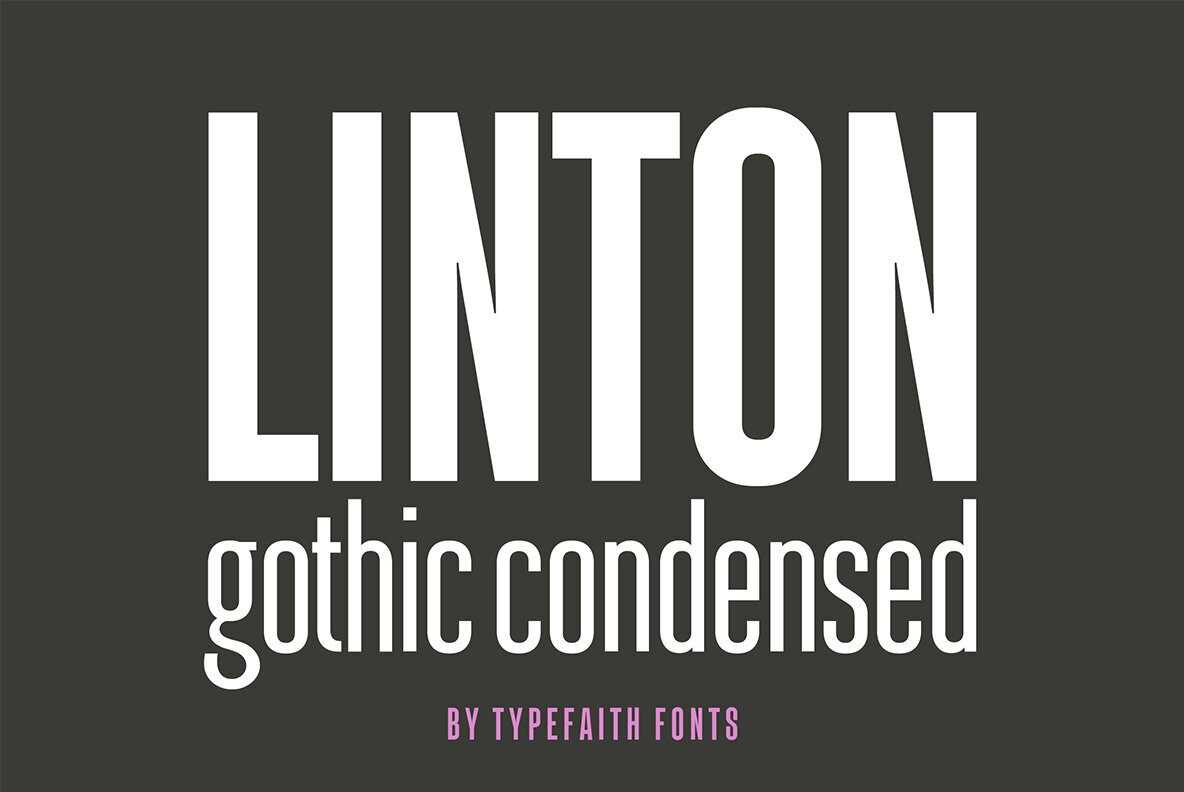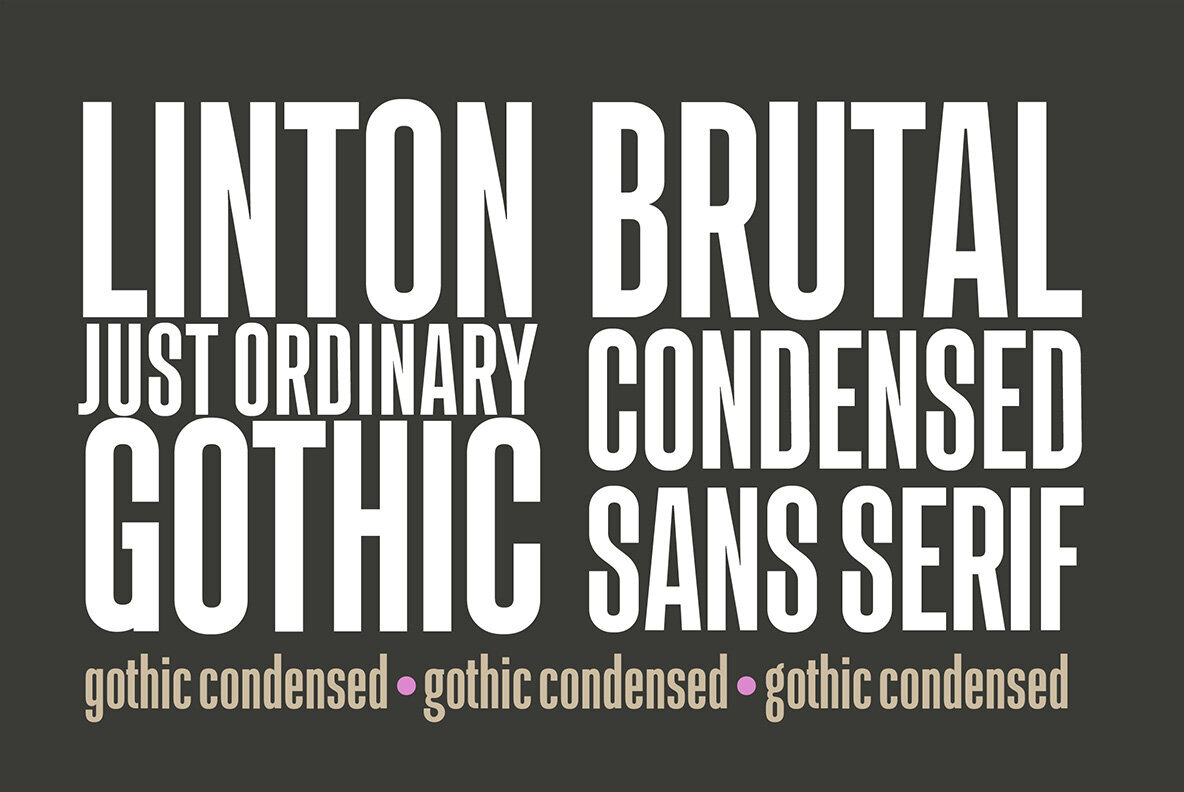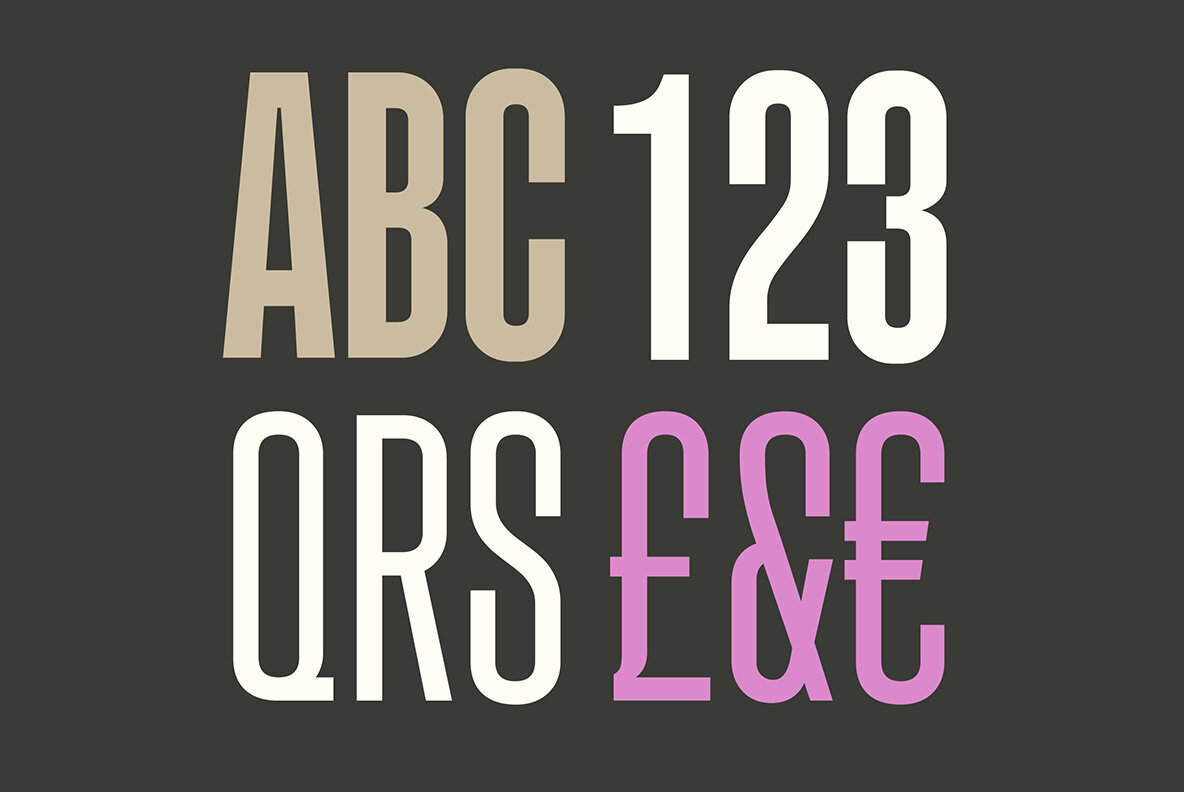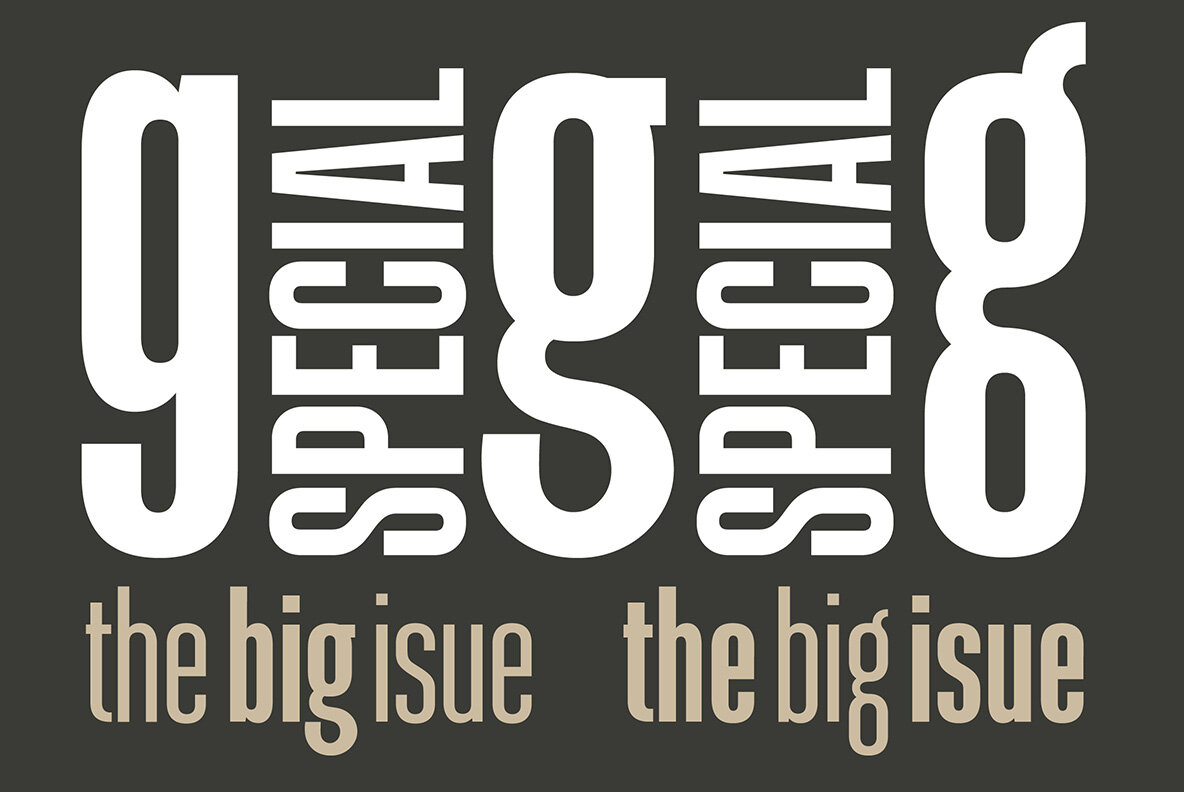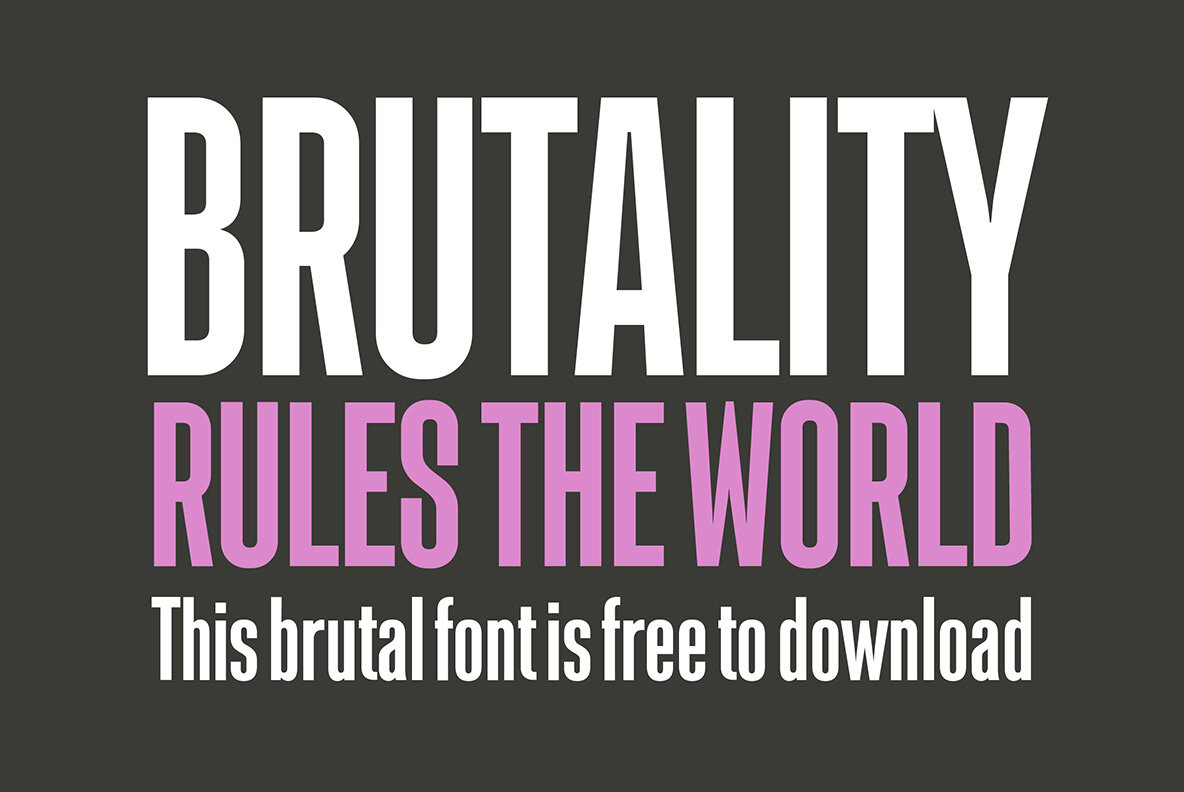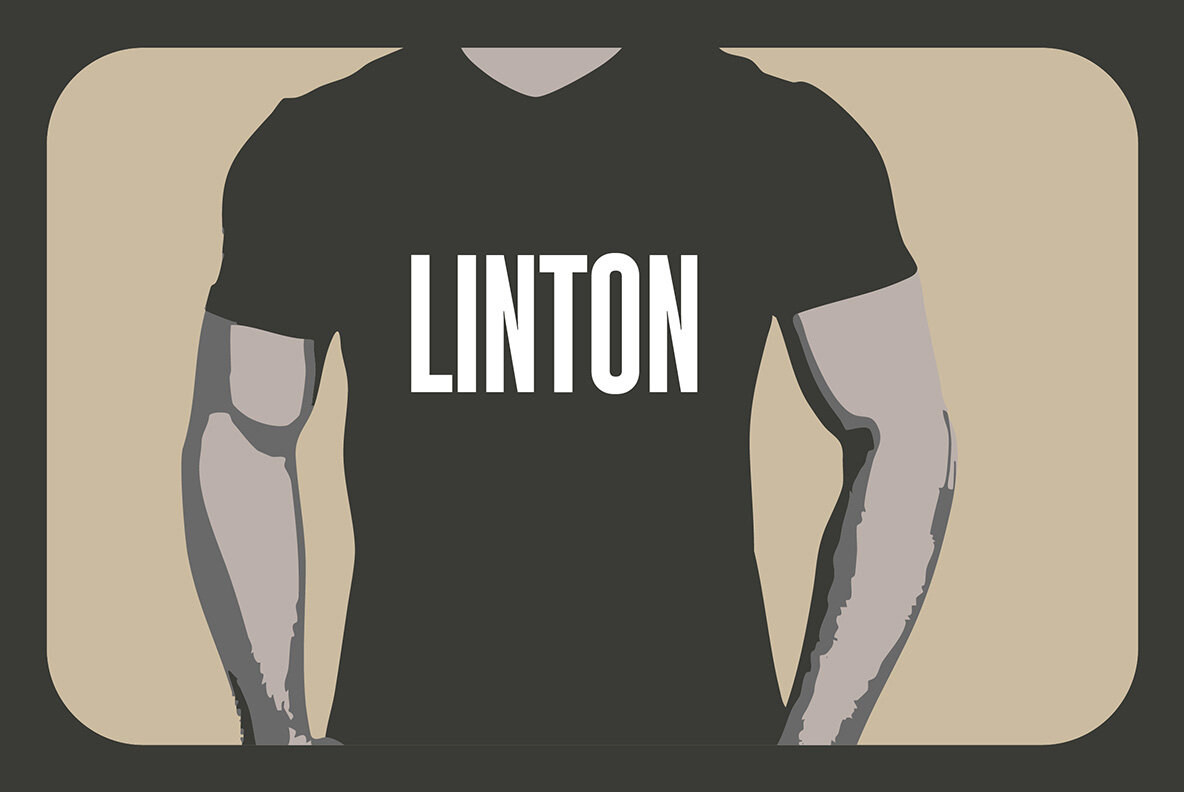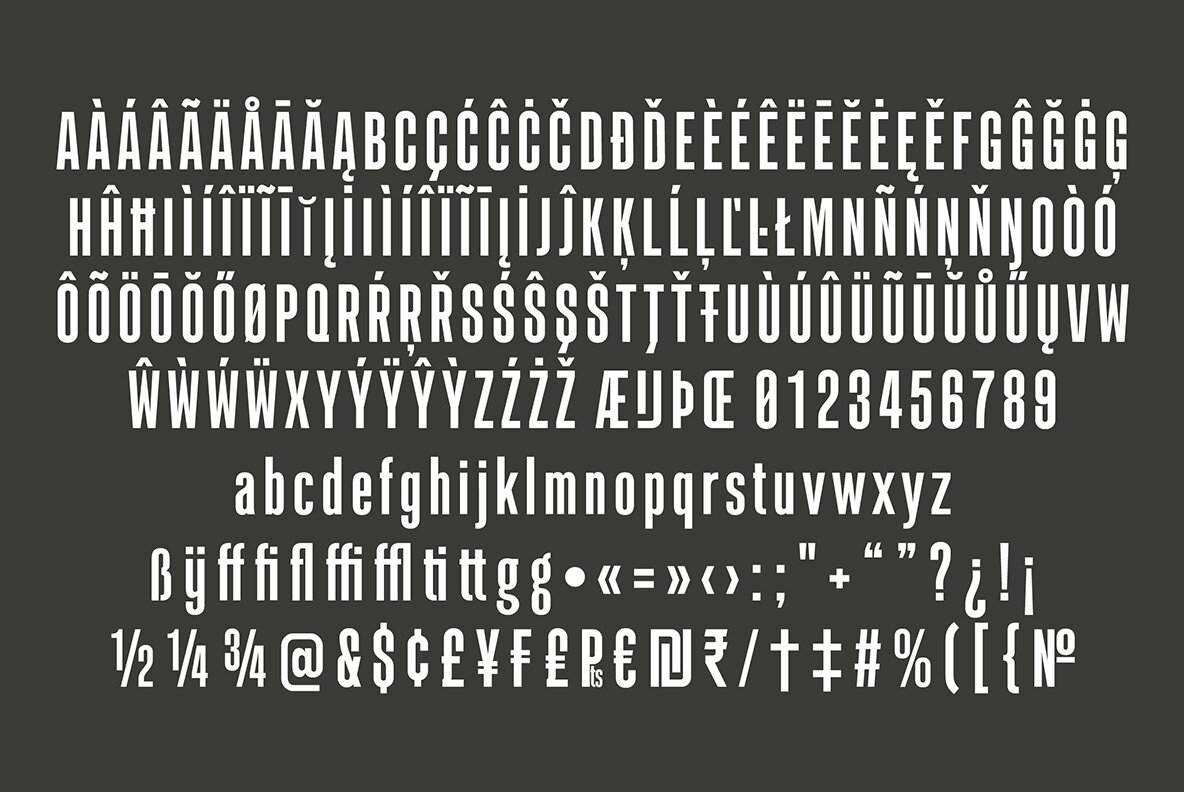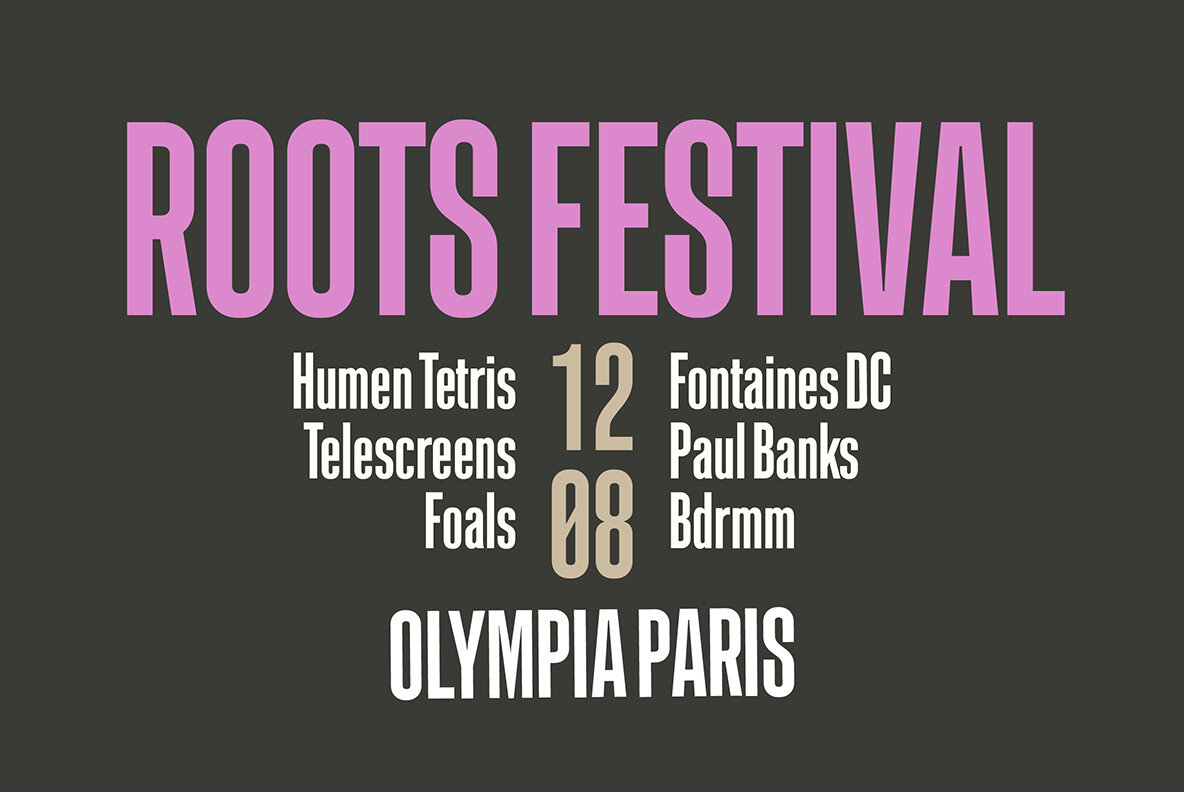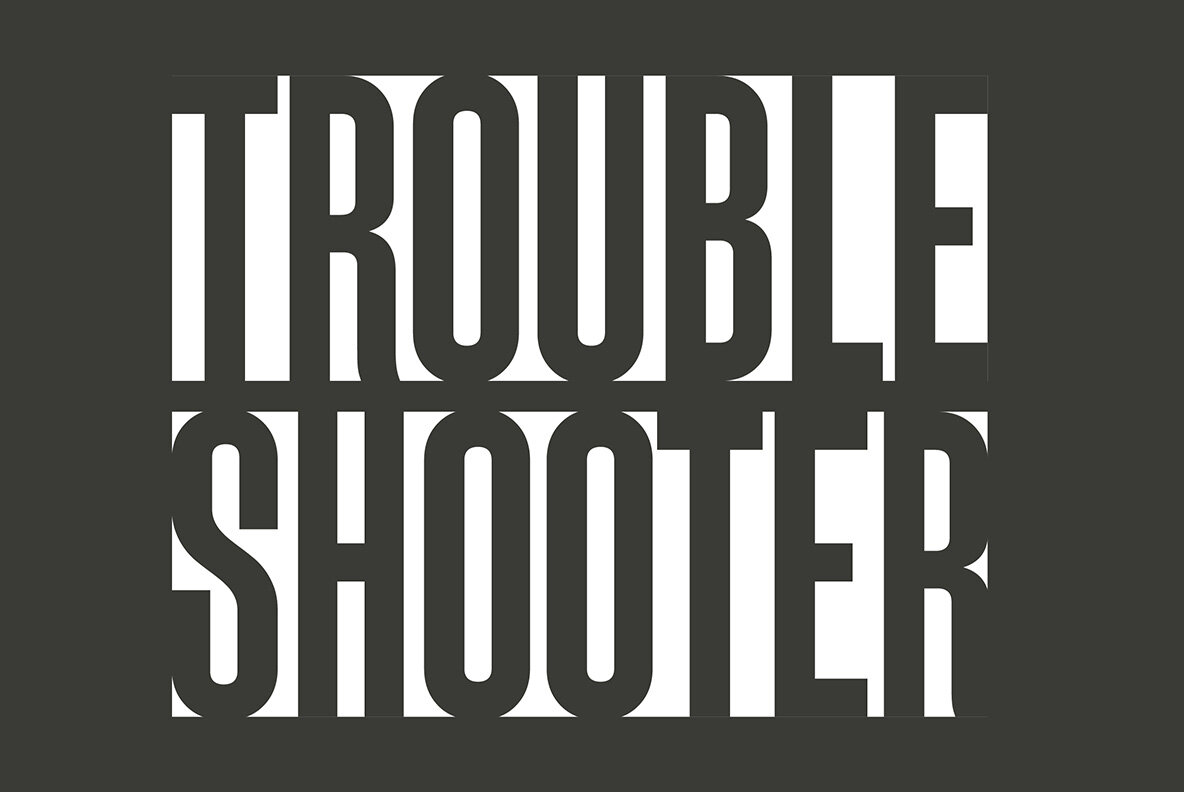
Linton Condensed Font
Linton Condensed presents a harmonious blend of boldness and subtle elegance, establishing itself as a vital asset for any design endeavor. Its range of weights, including bold, regular, light, and thin, offers exceptional versatility across various applications. Whether crafting striking headlines or incorporating casual text, Linton ensures a strong communicative presence.Linton Condensed: A Versatile Typeface for Impactful Design